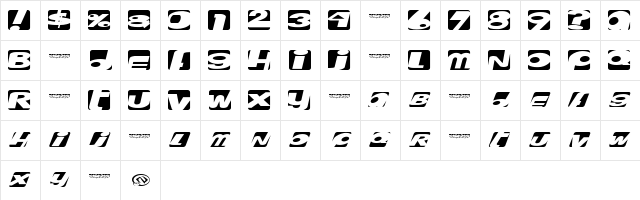
Royal box Regular
| Foundry | Chris Brown (visual design) |
| Designer | Chris Brown |
Design Context for Royal box Typeface
Royal box is a composed and adaptable typeface that performs quietly and consistently across a wide range of design contexts.